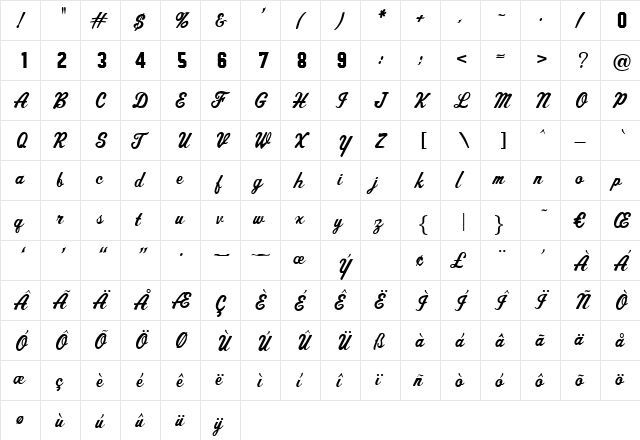
Aktuelle Regular Font Preview
Aktuelle Regular
Design Context for Aktuelle Typeface
Aktuelle offers clean, dependable letterforms without strong stylistic allegiance, making it a practical choice for designers who need flexibility.